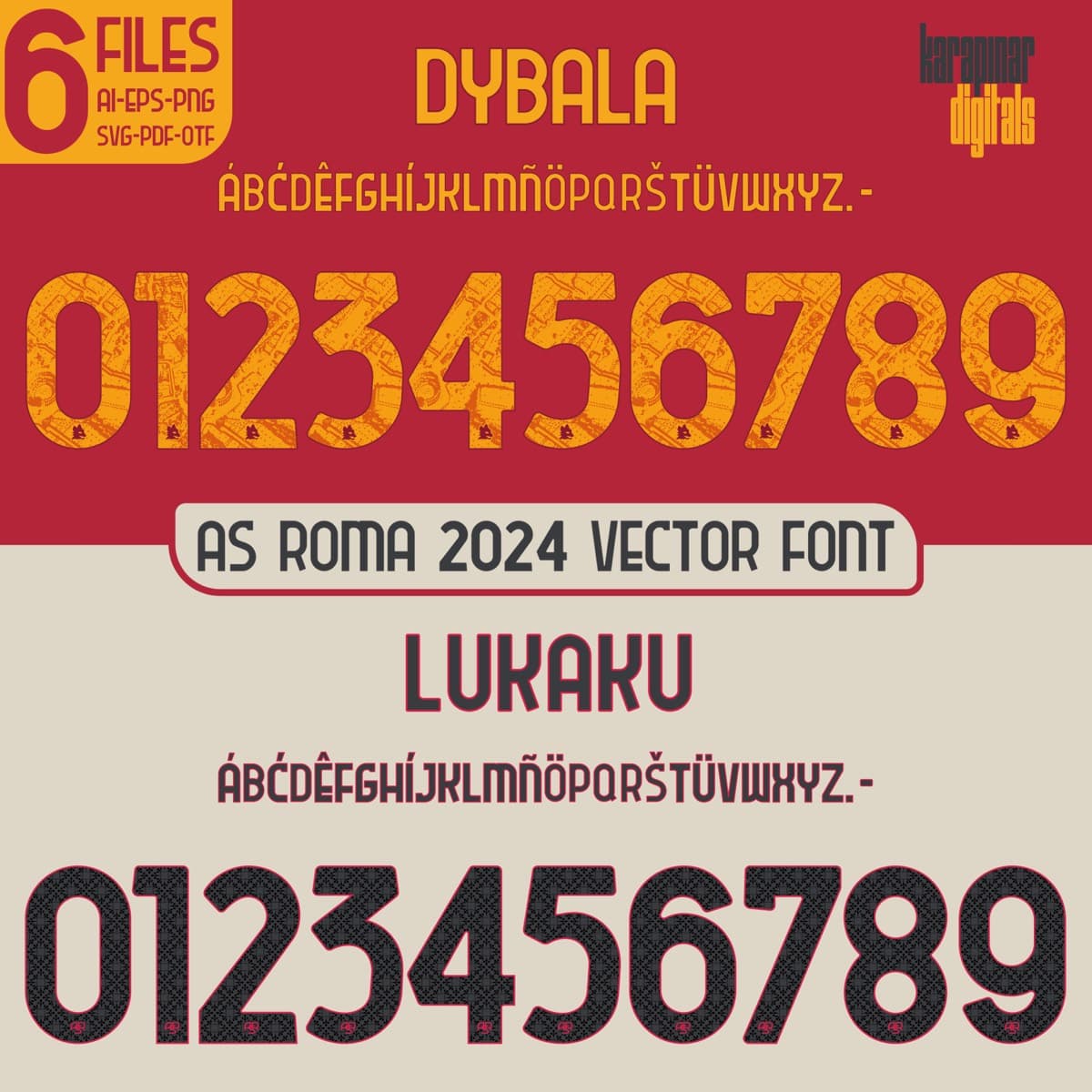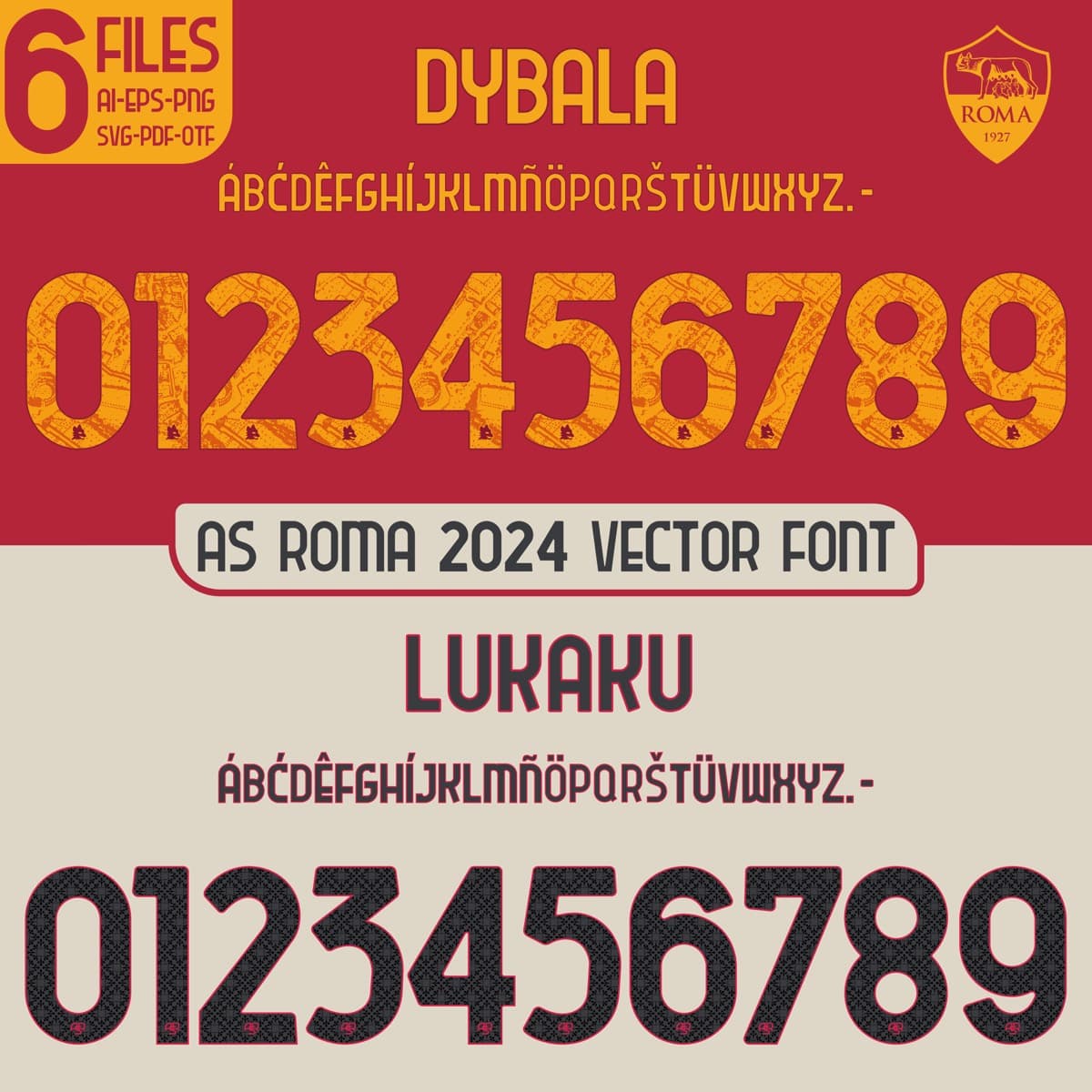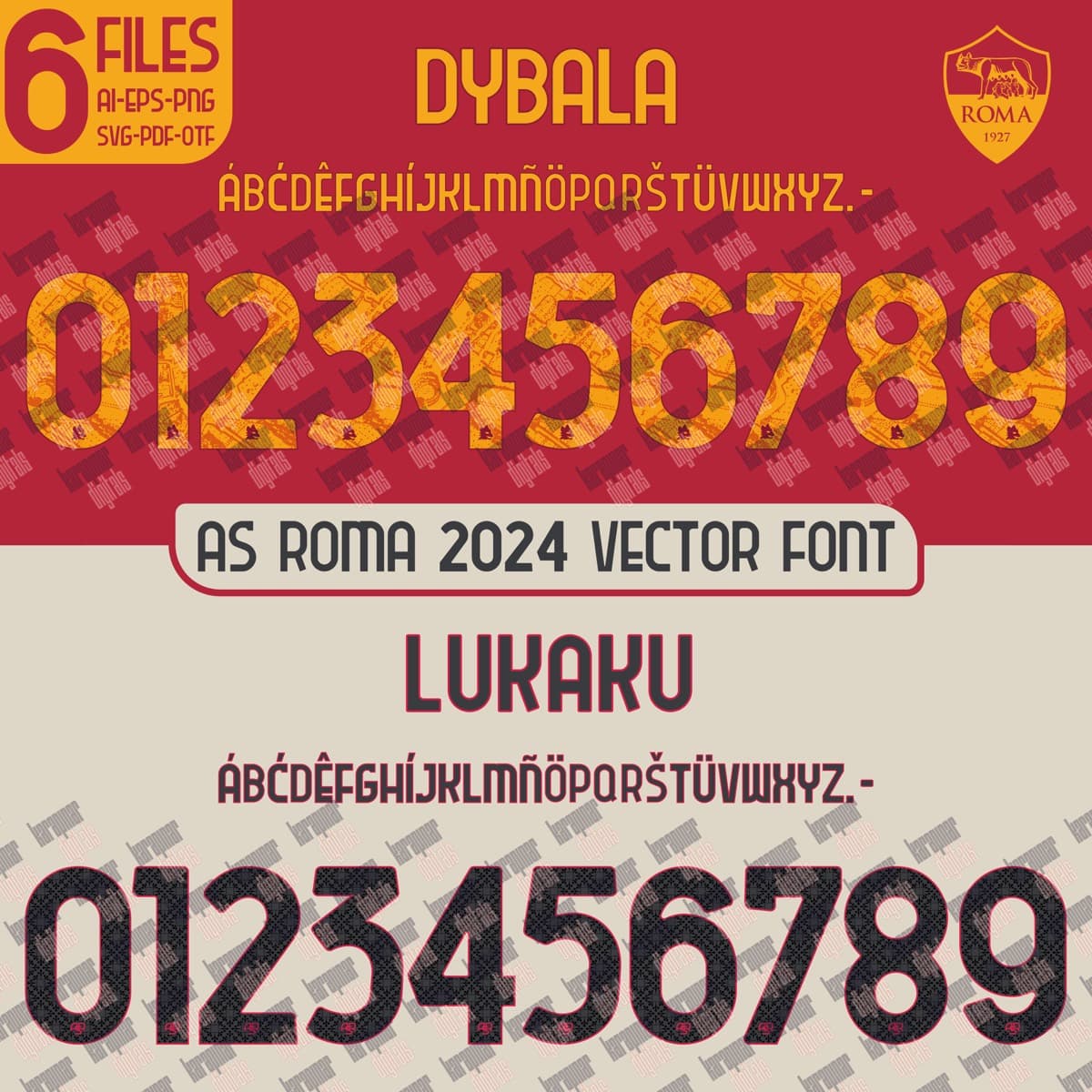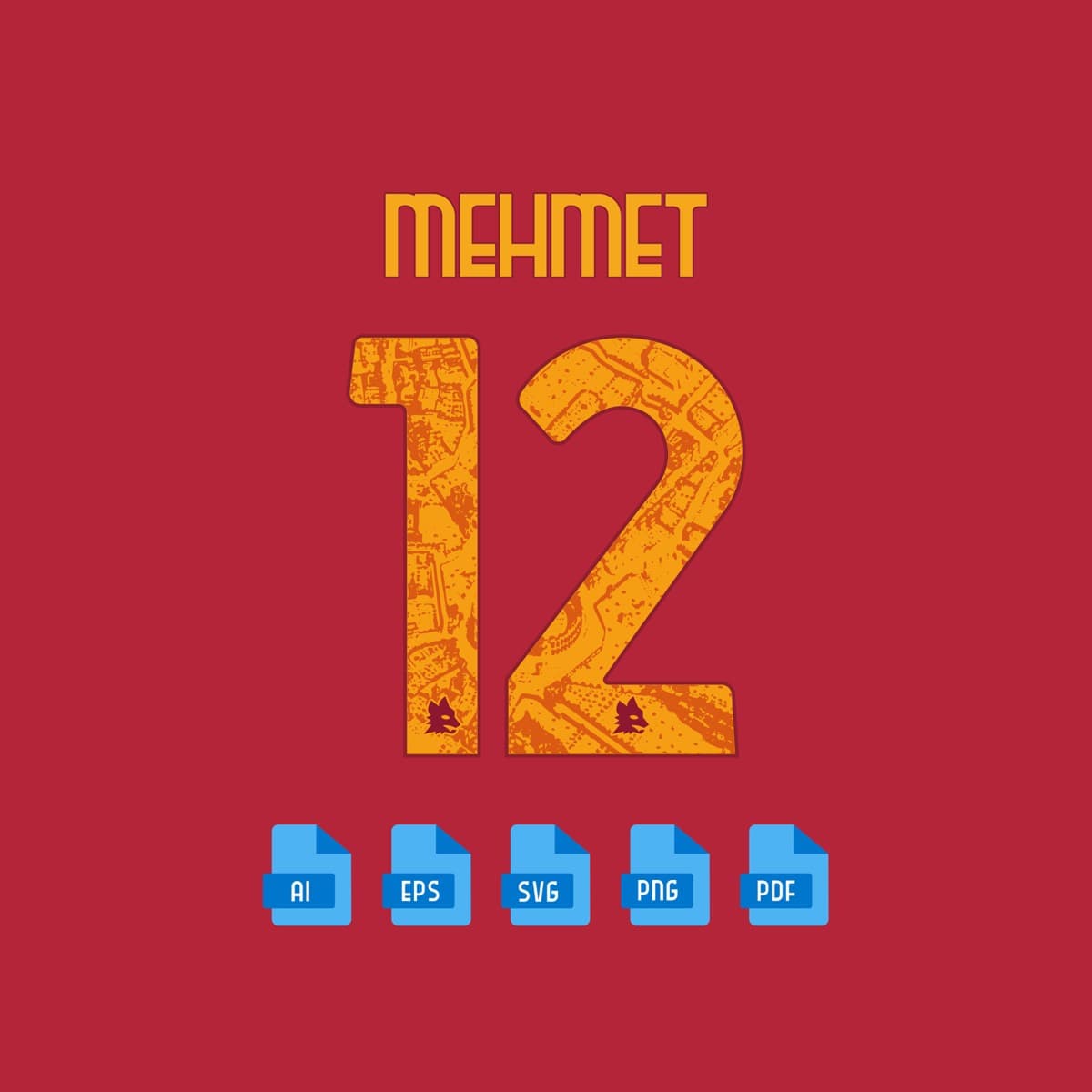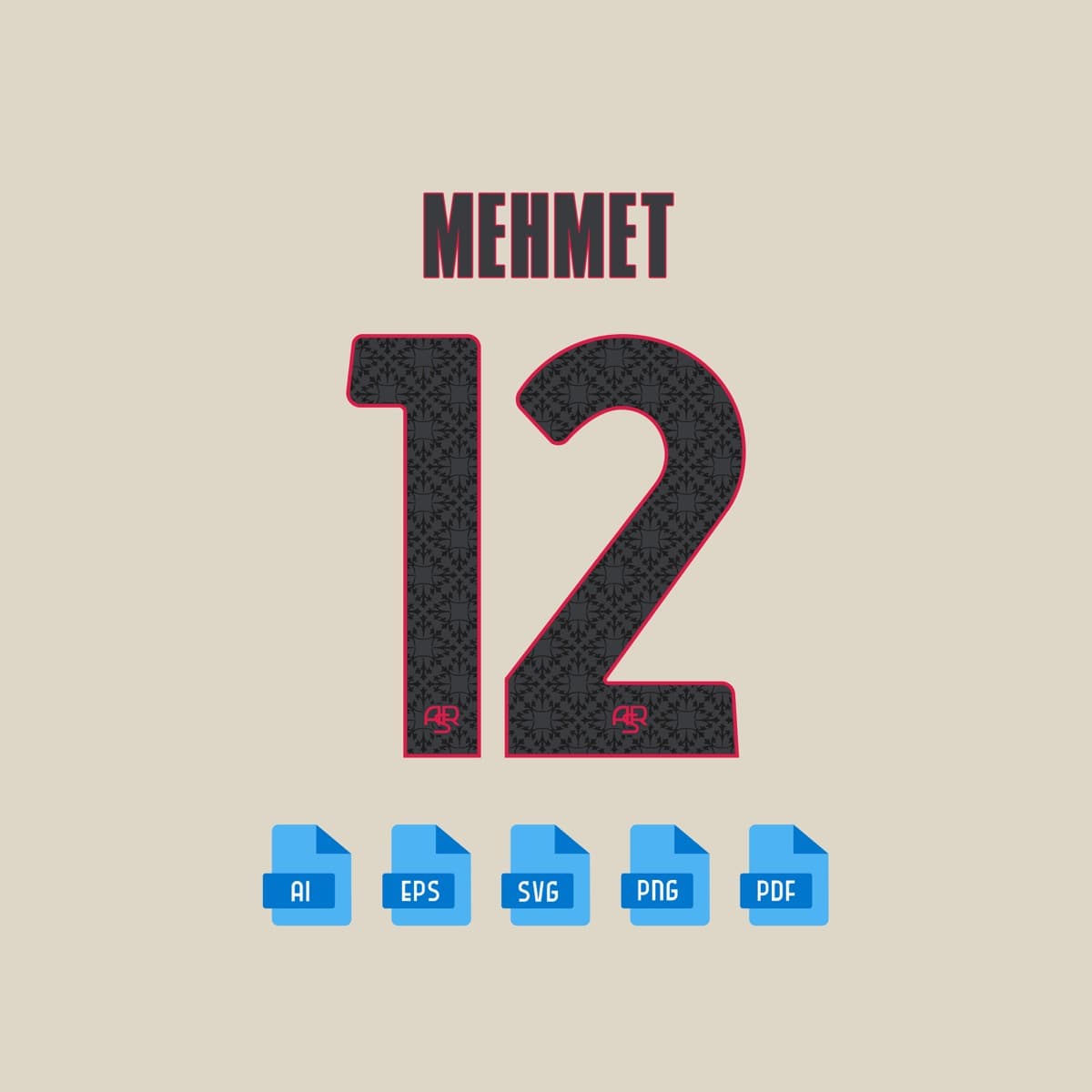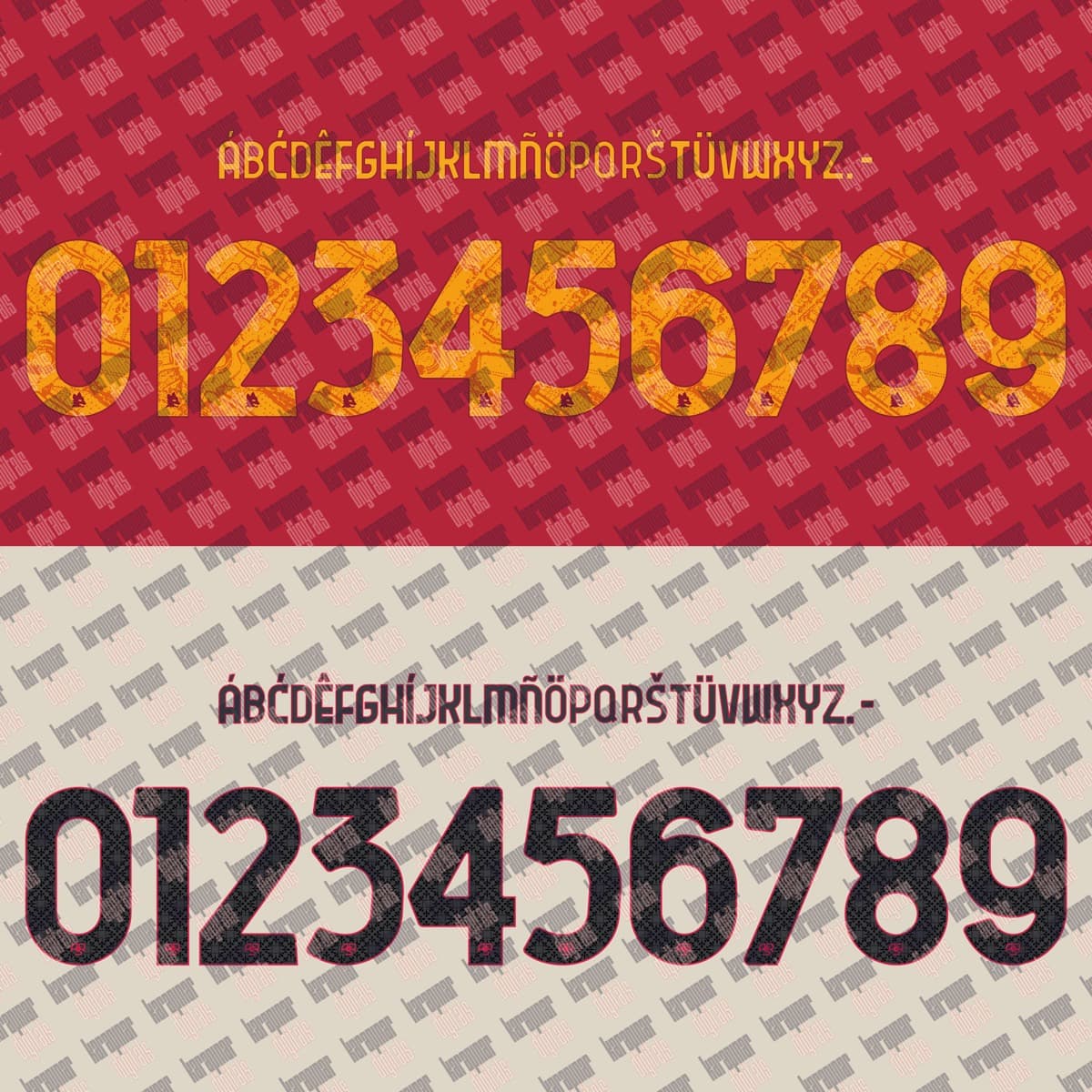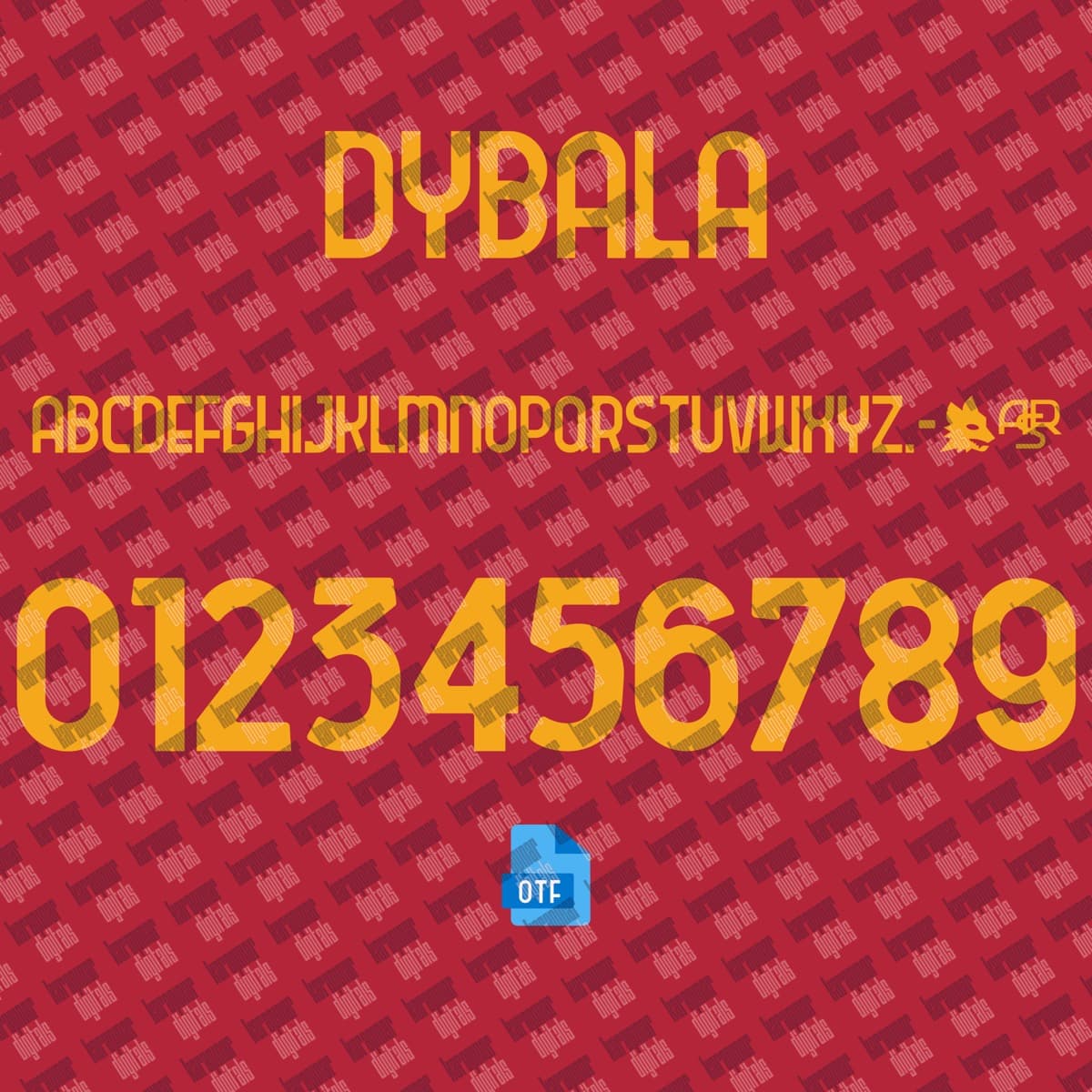
AS Roma 2024 football jersey font for AS Roma — vector letters and numbers preview
AS Roma 2024
AS Roma · 2024
AS Roma 2024
A set inspired by the AS Roma 2024 jersey typography, with a name and number system redrawn for print and screen. Original curves, consistent weight and a complete 0–9 numeral family.